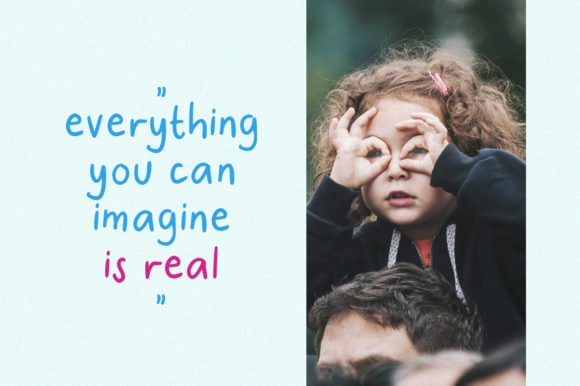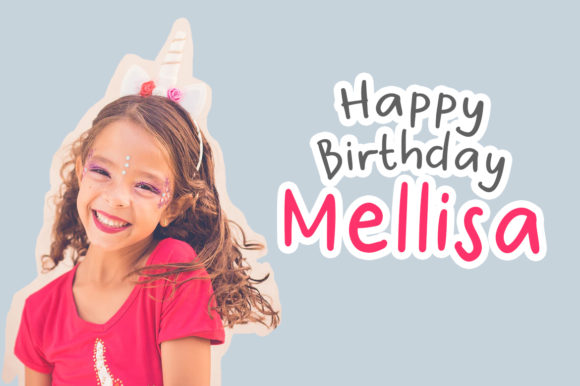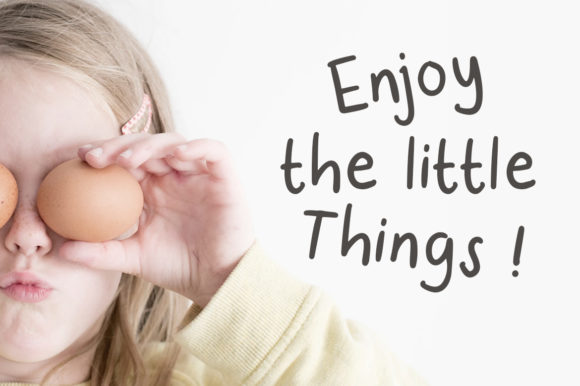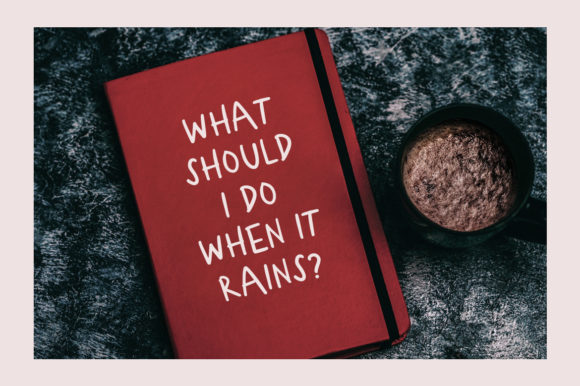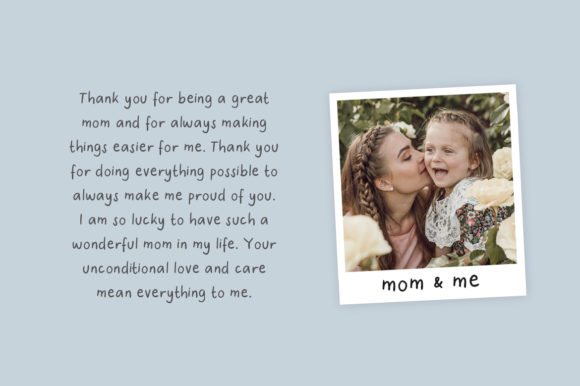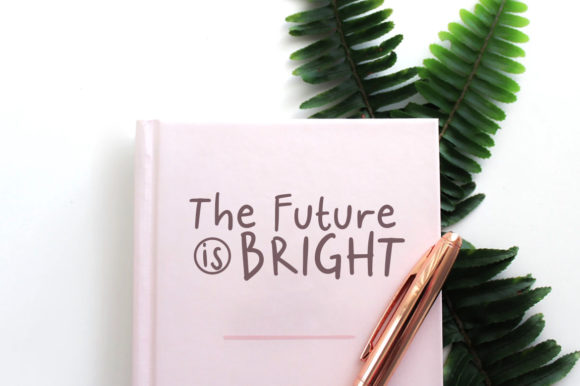
Ginthul Font: Add a Touch of Whimsy to Your Designs
Are you looking for a font that can bring a smile to your audience’s face? Look no further than the Ginthul Font! This fun and playful handwritten font is perfect for designers and crafters who want to add a joyful touch to their projects. In this article, we’ll explore the features and benefits of the Ginthul Font, and why it’s an excellent choice for any kids-related project.
What is Ginthul Font?
Ginthul Font is a modern, handwritten font that exudes playfulness and charm. Its unique and quirky design makes it perfect for projects that require a fun and lighthearted approach. The font is designed to be highly legible, making it suitable for use in a variety of applications, from titles and headings to body text.
Key Features of Ginthul Font
- Playful and Whimsical Design: Ginthul Font features a unique and playful design that is sure to capture the attention of your audience.
- Handwritten Style: The font has a handwritten style that gives it a personal and friendly feel.
- Highly Legible: Despite its playful design, Ginthul Font is highly legible, making it suitable for use in a variety of applications.
- Multilingual Support: The font supports multiple languages, making it a great choice for designers and crafters who work with international clients.
Why Choose Ginthul Font for Kids-Related Projects?
When it comes to designing for kids, it’s essential to choose a font that is fun, playful, and engaging. Ginthul Font ticks all these boxes, making it an excellent choice for kids-related projects. Here are some reasons why:
- Kids Love Playful Fonts: Kids are naturally drawn to playful and colorful designs, and Ginthul Font delivers just that.
- Perfect for Children’s Books: The font’s playful design and high legibility make it perfect for use in children’s books, comics, and other reading materials.
- Ideal for Educational Materials: Ginthul Font is also suitable for use in educational materials, such as worksheets, activity sheets, and educational posters.
- Great for Kids’ Party Invitations: The font’s playful design makes it perfect for use in kids’ party invitations, flyers, and other promotional materials.
How to Use Ginthul Font in Your Designs
Using Ginthul Font in your designs is easy! Here are some tips to get you started:
- Pair it with Other Fonts: Ginthul Font pairs well with other fonts, such as sans-serif fonts, to create a visually appealing design.
- Use it in Titles and Headings: The font’s playful design makes it perfect for use in titles and headings.
- Add Color and Graphics: Add color and graphics to your design to make it more engaging and fun.
In conclusion, Ginthul Font is a fun and playful handwritten font that is perfect for designers and crafters who want to add a joyful touch to their projects. Its unique and quirky design makes it suitable for use in a variety of applications, from kids-related projects to titles and headings. With its highly legible design and multilingual support, Ginthul Font is an excellent choice for designers and crafters who want to create engaging and fun designs.